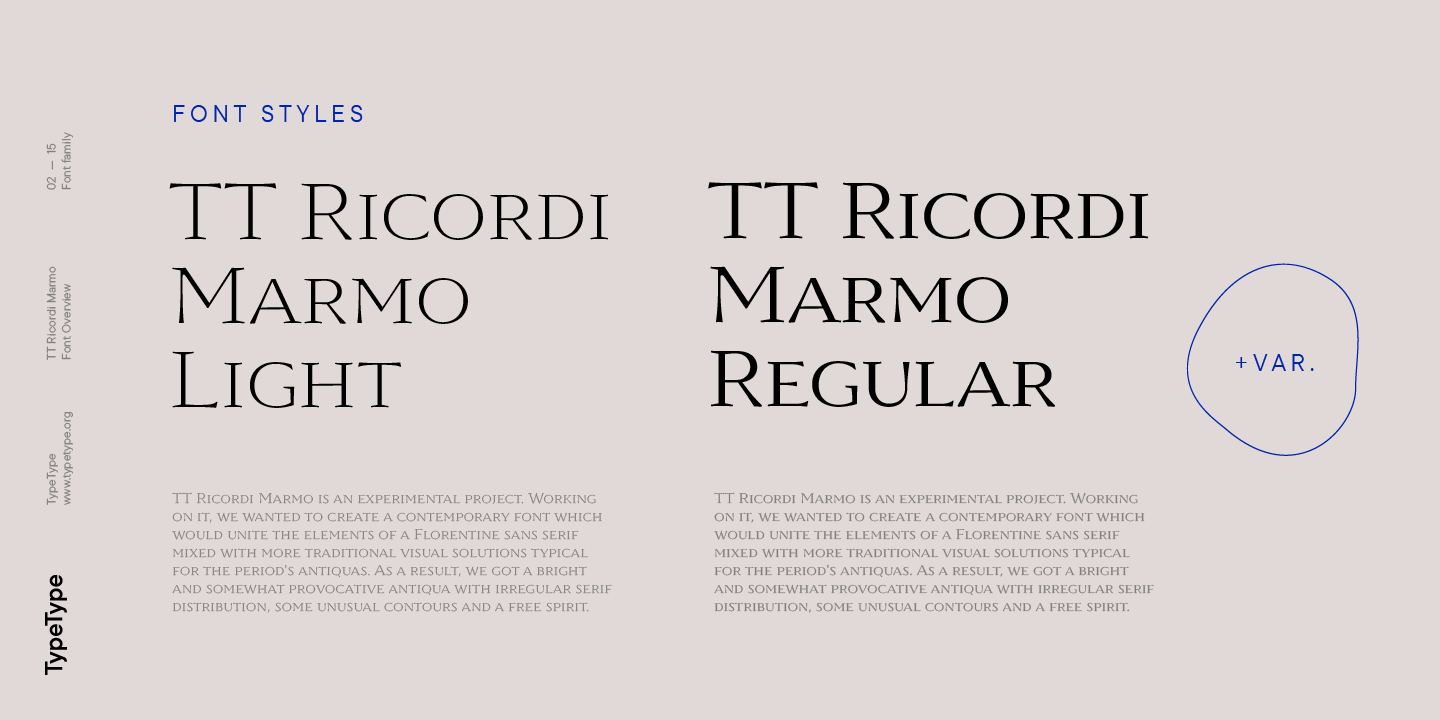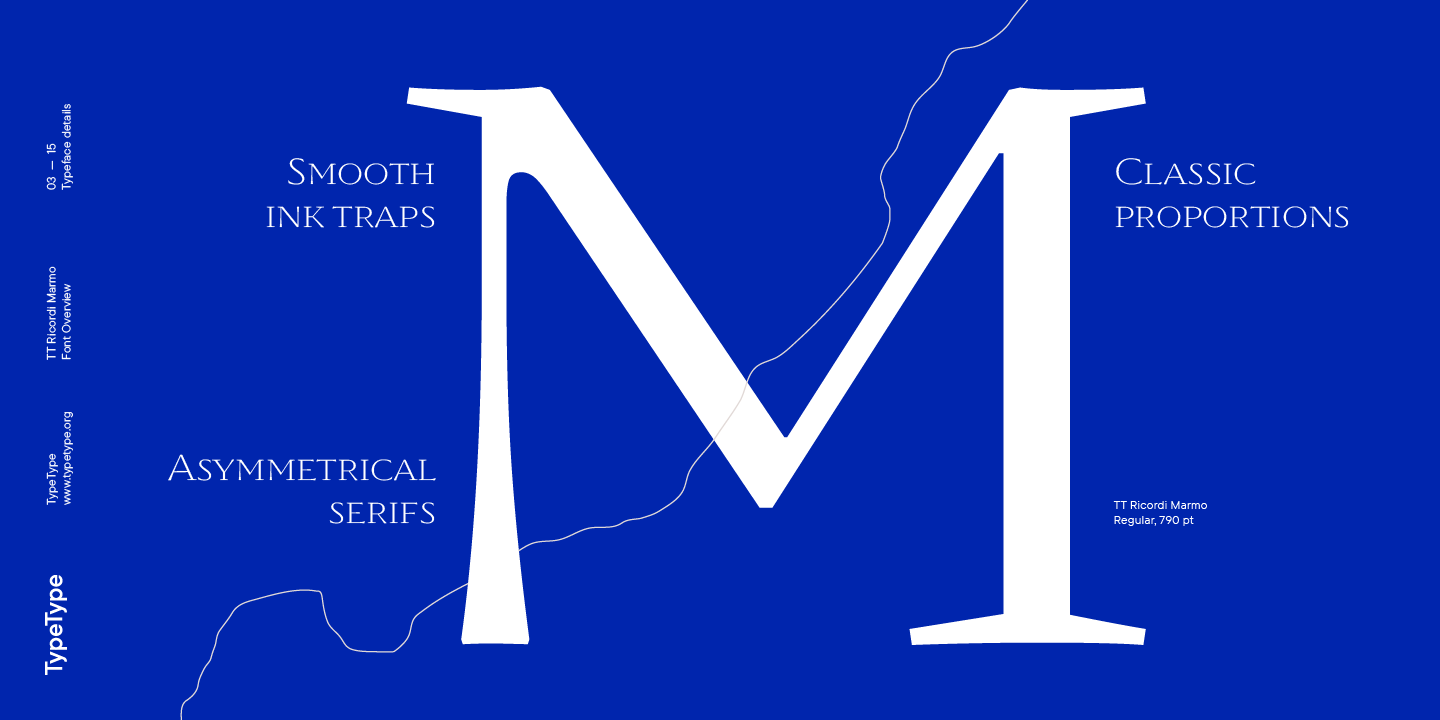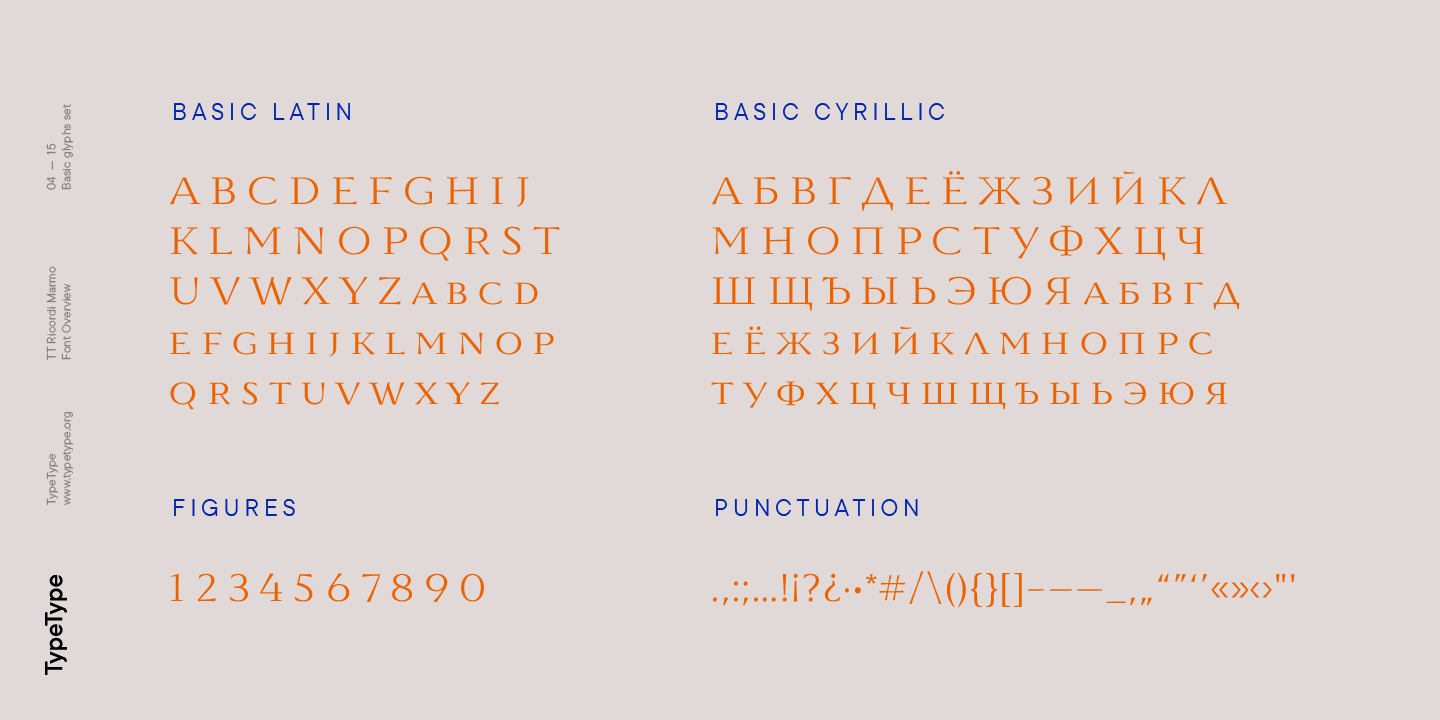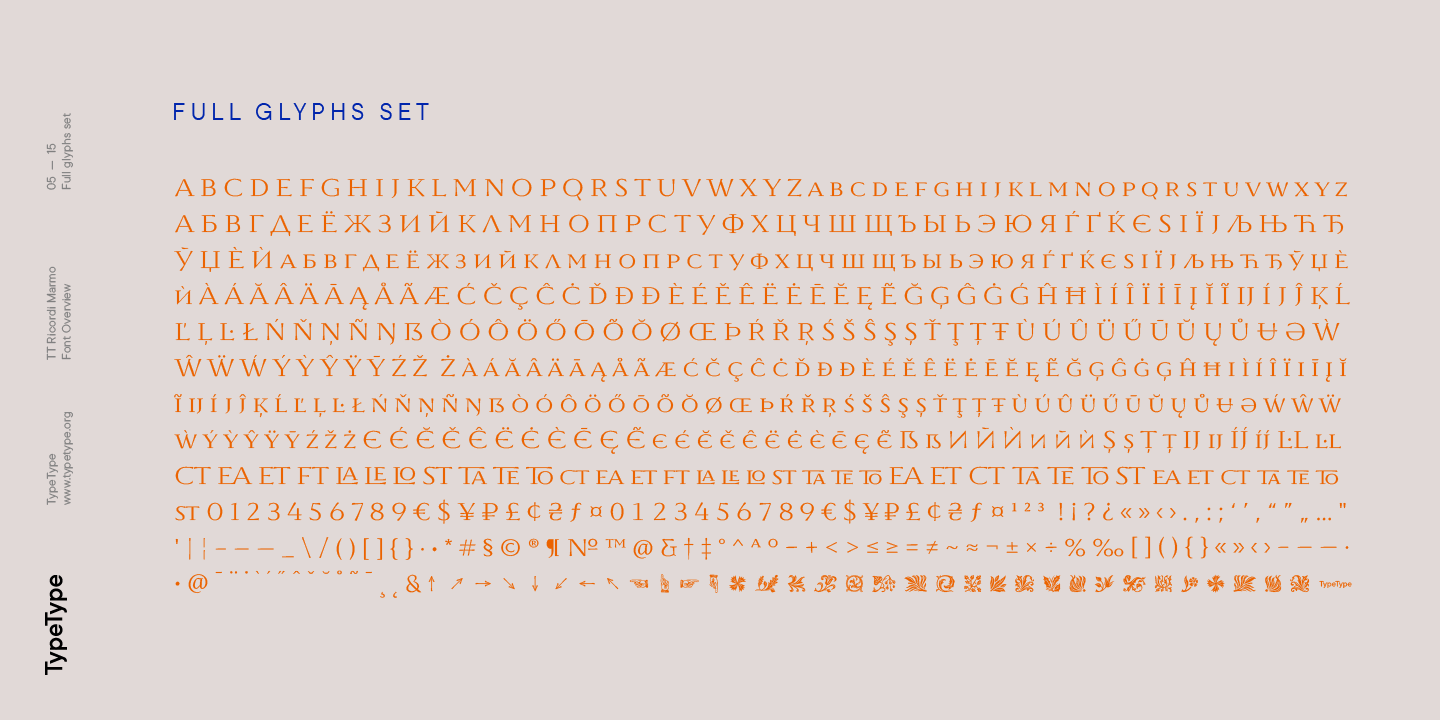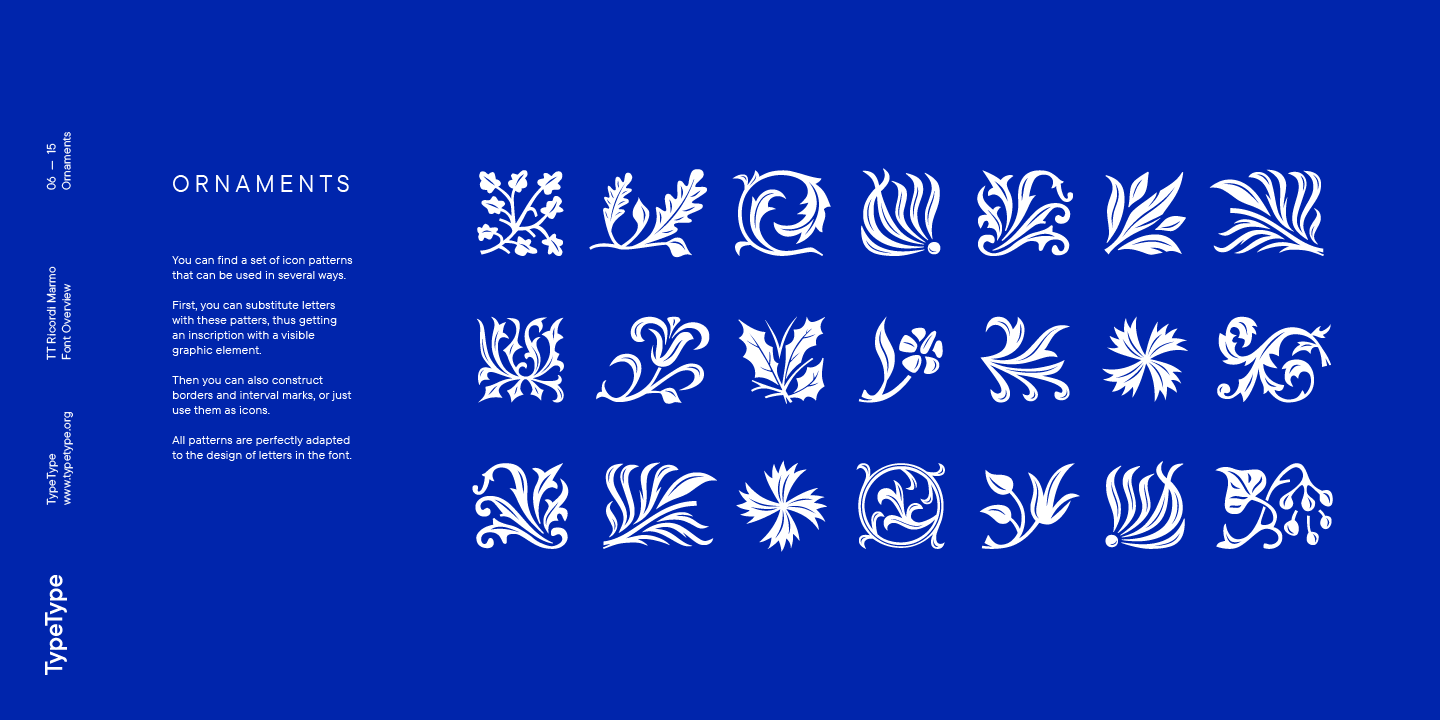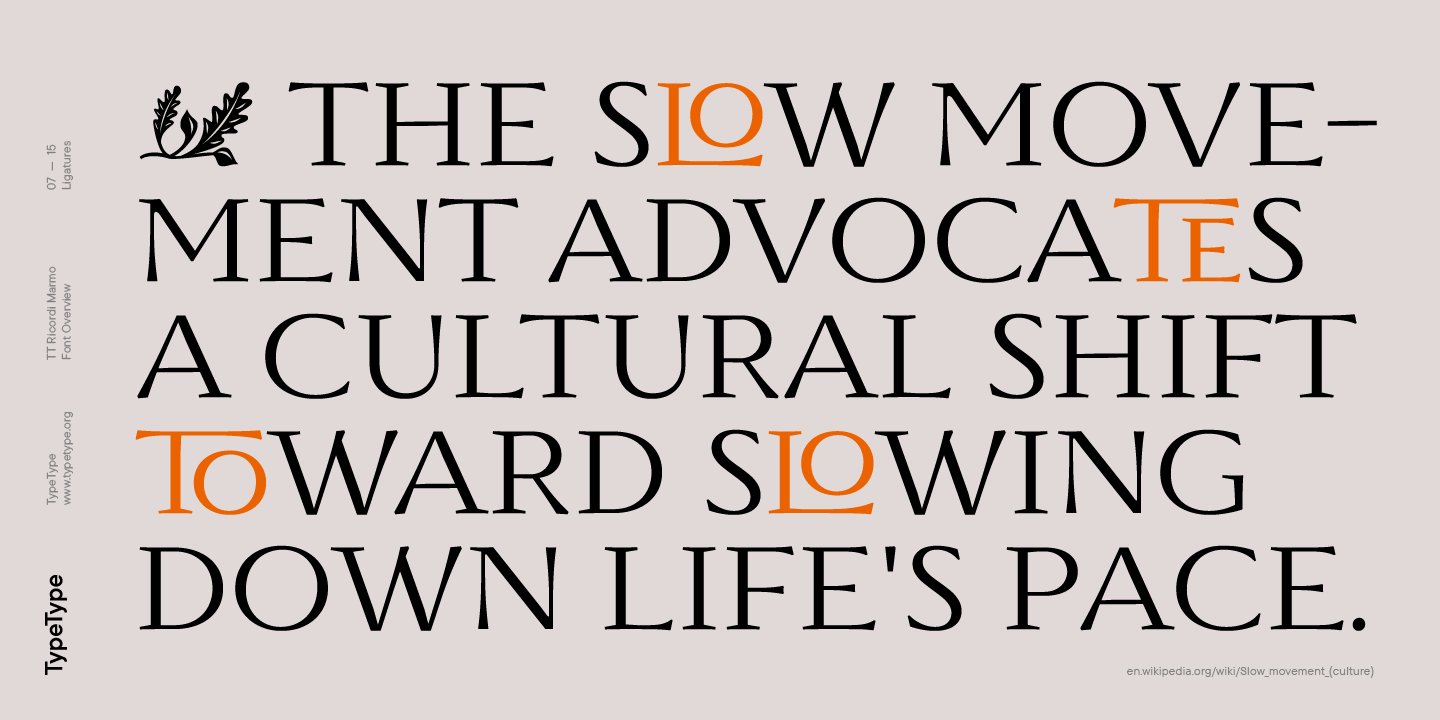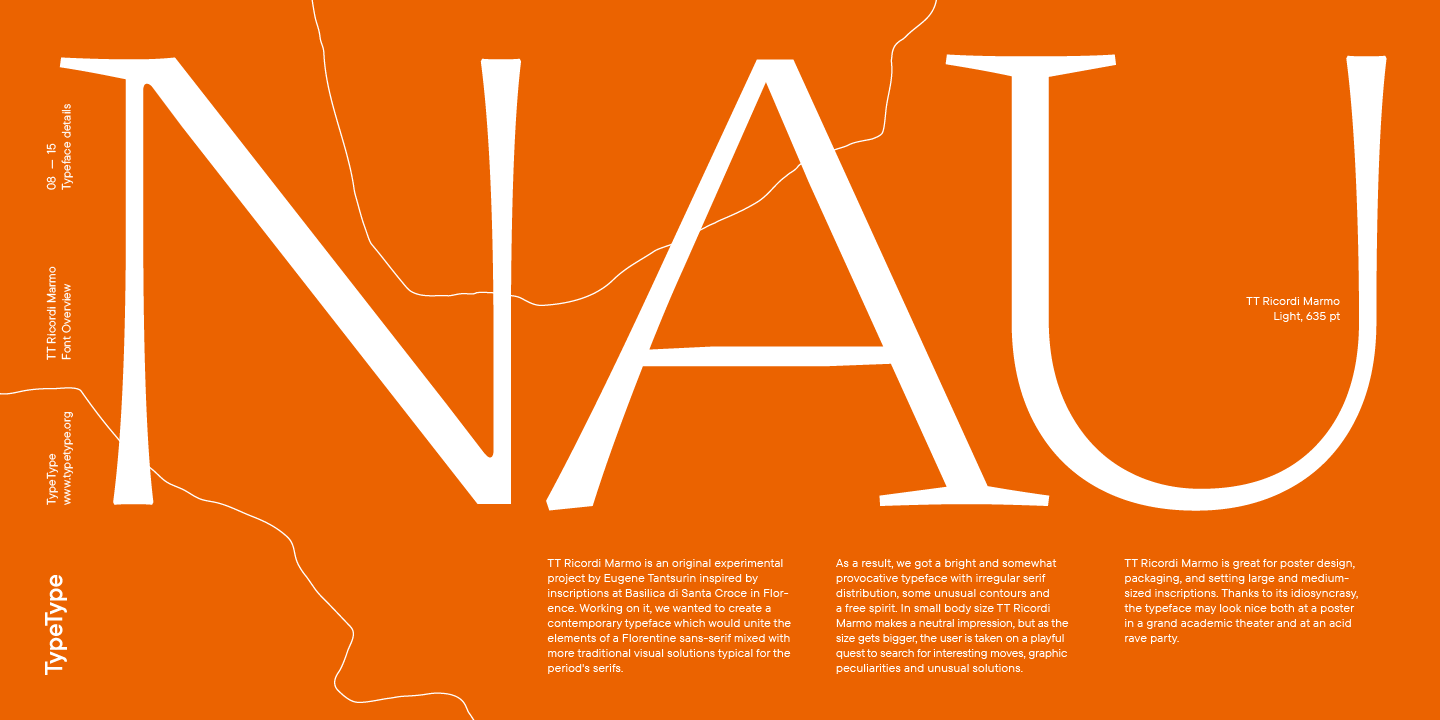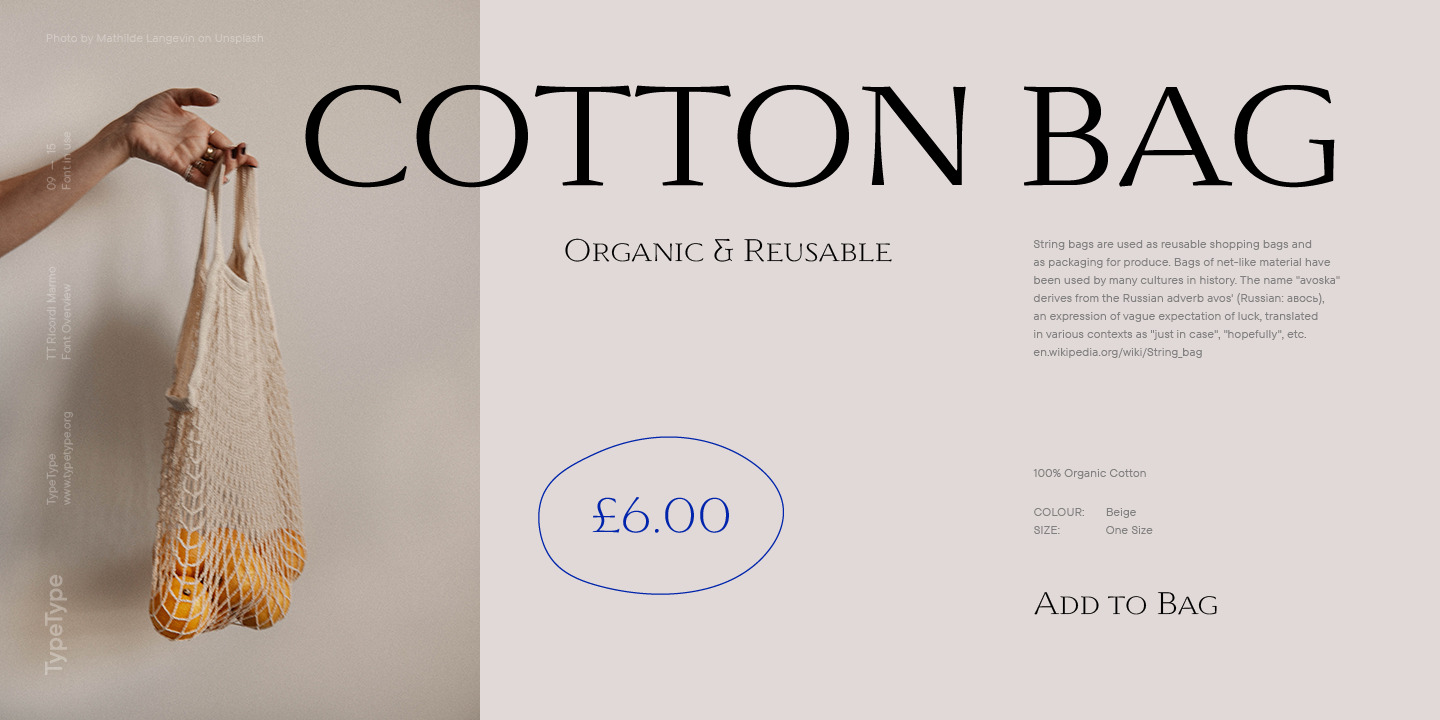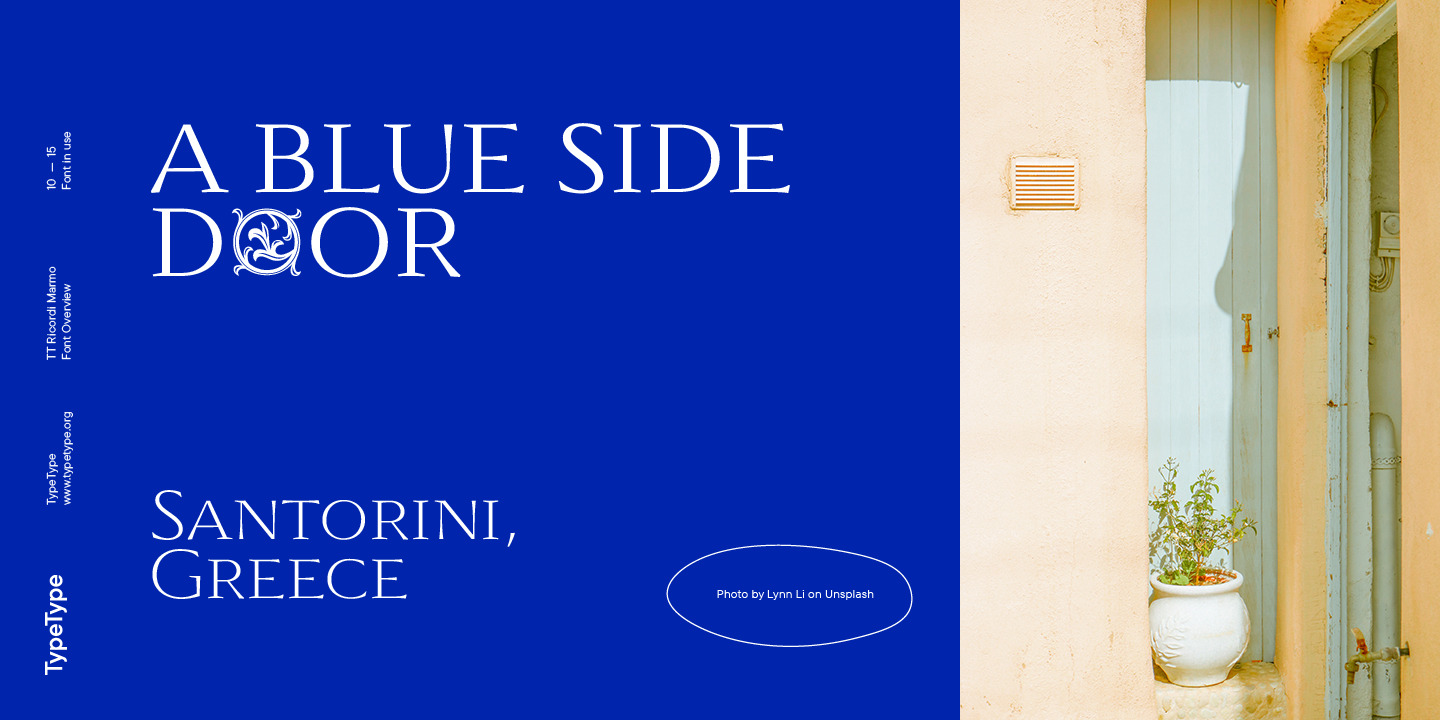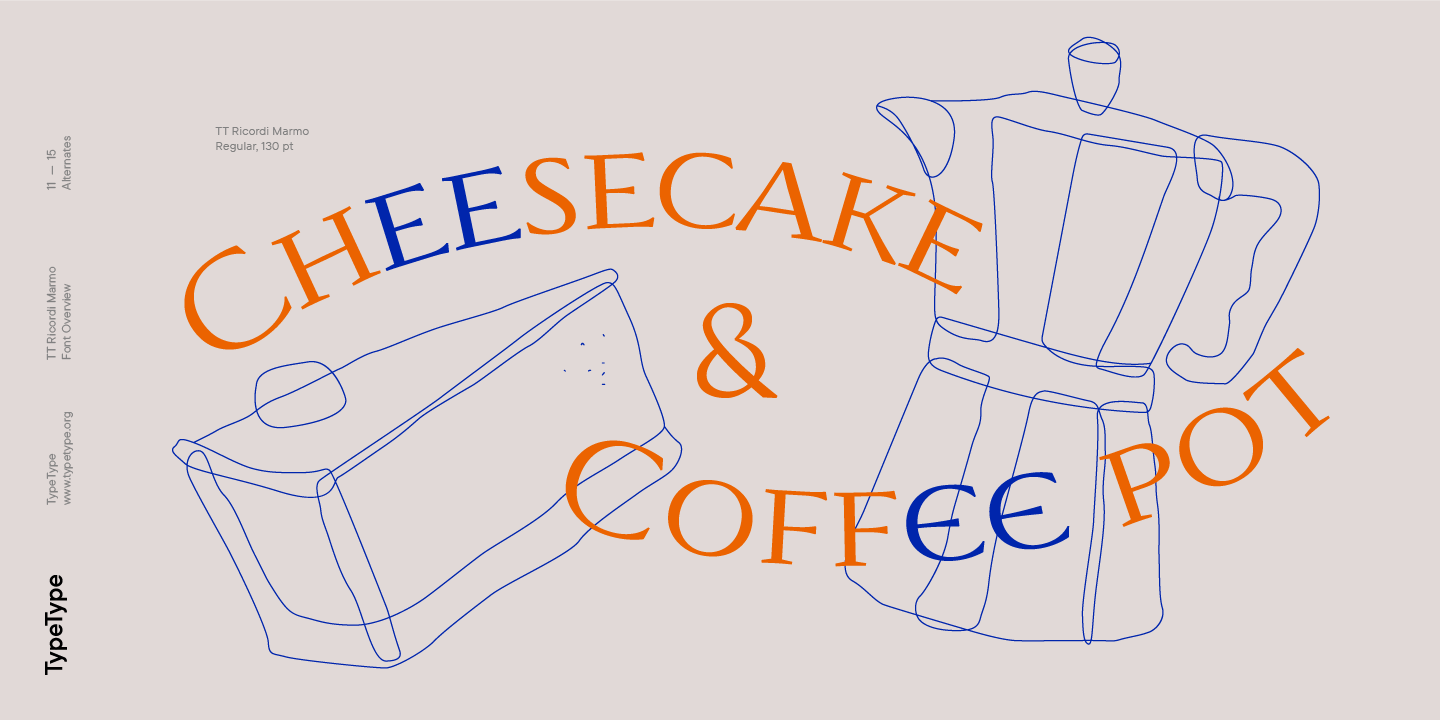
TT Ricordi Marmo
TT Ricordi Marmo is a vivid Antiqua with irregularly placed serifs and unusual contours. It draws inspiration from ancient stone inscriptions.
A bright and provocative typeface with irregular serif distribution
TT Ricordi Marmo is an original experimental project by Eugene Tantsurin inspired by inscriptions at Basilica di Santa Croce in Florence. Working on it, we wanted to create a contemporary typeface which would unite the elements of a Florentine sans-serif mixed with more traditional visual solutions typical for the period’s serifs. As a result, we got a bright and somewhat provocative typeface with some unusual contours and a free spirit.
About font family TT Ricordi Marmo
TT Ricordi Marmo extends the series of experimental projects within the TT Ricordi font collection. The essence of these projects is to find hidden gems in inscriptions carved into old plaques and stones and bring them back to life in the form of modern typefaces under the name of TT Ricordi.
TT Ricordi Marmo is an original experimental project by Eugene Tantsurin inspired by inscriptions at Basilica di Santa Croce in Florence. While working on this project, we aimed to design a modern font that would feature the elements of a Florentine sans serif combined with more traditional visual solutions typical of serifs from that era. As a result, we have an eye-catching and a little provocative typeface with irregular serif distribution, unusual contours, and a free spirit.
In small point sizes, TT Ricordi Marmo makes a neutral impression, but as the size gets bigger, the user is taken on a playful quest to search for graphic peculiarities and unusual, inventive solutions. TT Ricordi Marmo is an excellent choice for poster design, packaging, and setting large and medium-sized short texts. Due to its unconventional character and versatility, the typeface will look equally great on a poster for a grand academic theater and an announcement of an acid rave party.
OpenType features
ss01 | Alternative latin E
ss02 | Alternative Eszett
ss03 | Alternative Cyrillic I
ss04 | Alternative Ampersand
dlig | Discretionary Ligatures
case | Case Sensitive Forms